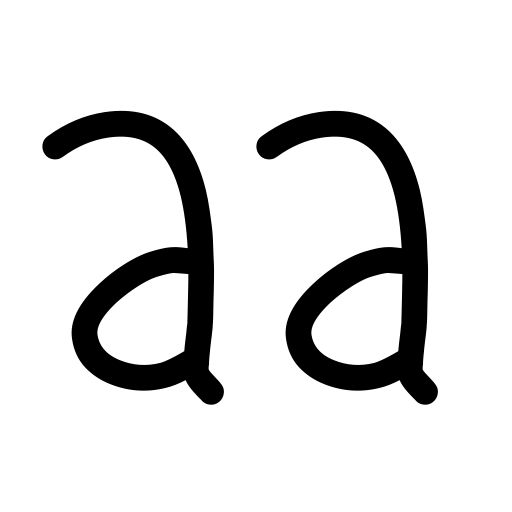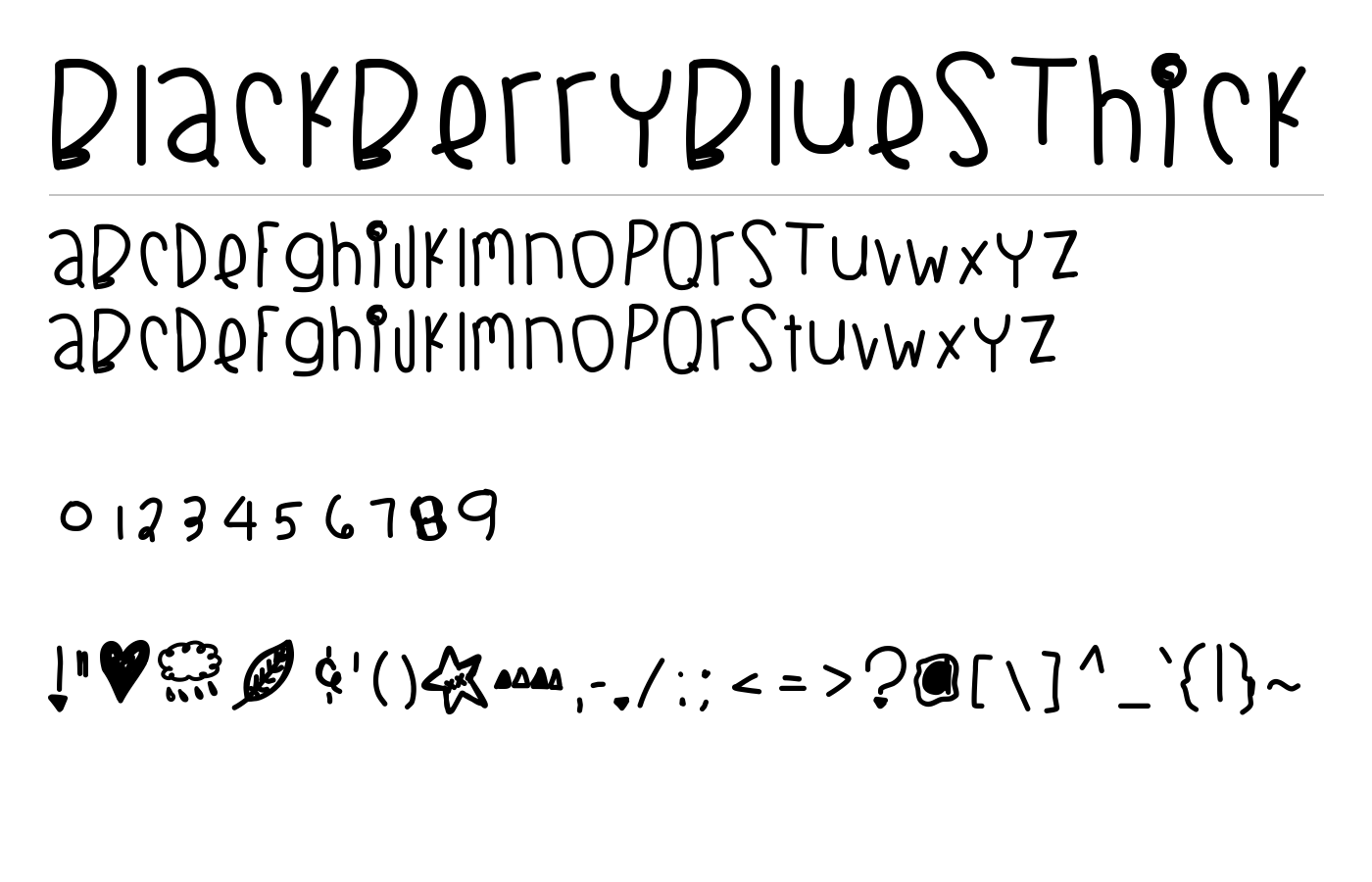
BlackberryBluesThick is a playful, hand-drawn sans serif font with a casual and quirky personality. Its irregular, slightly tall letterforms and unusual details give it a friendly, informal feel that works well for creative and fun designs like children’s books, informal invitations, or playful branding. This font stands out best in headlines or decorative uses where its charm and distinctiveness can shine.
BlackberryBluesThick Font
About BlackberryBluesThick Font
| Font family | BlackberryBluesThick Font |